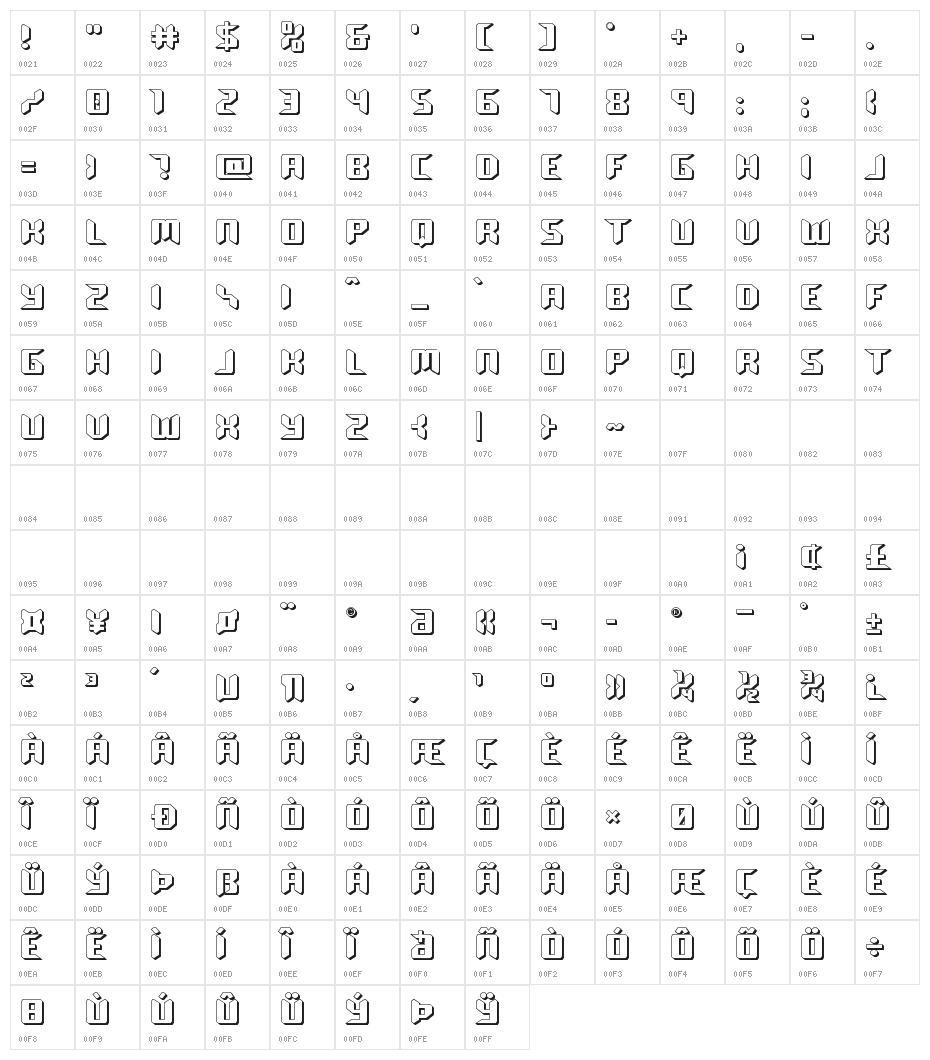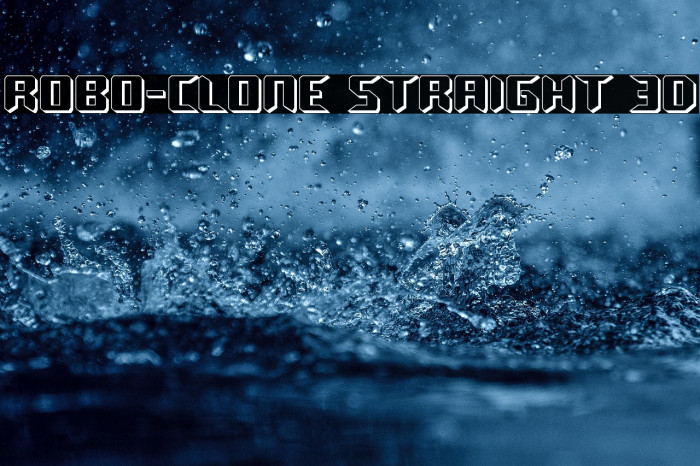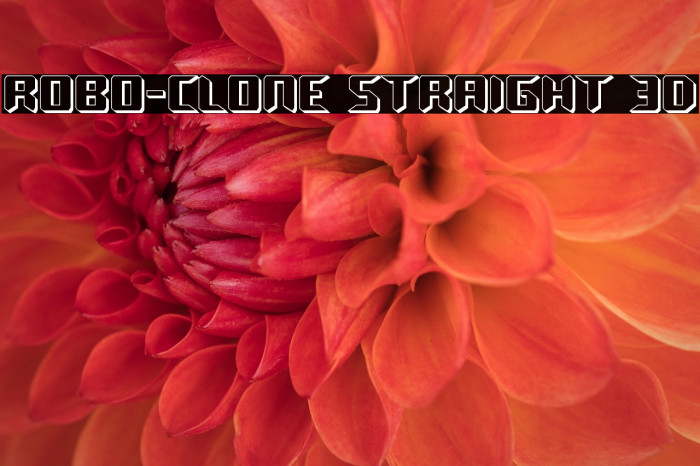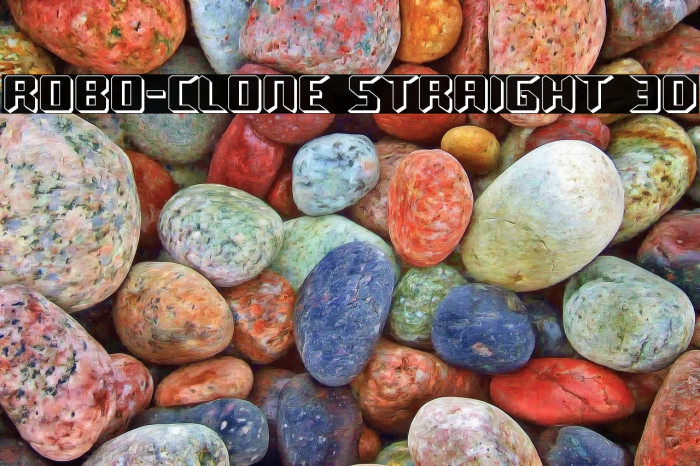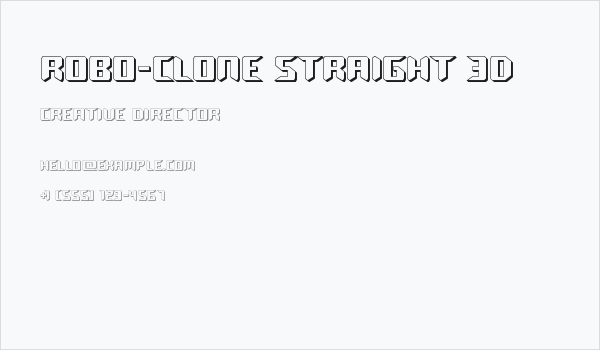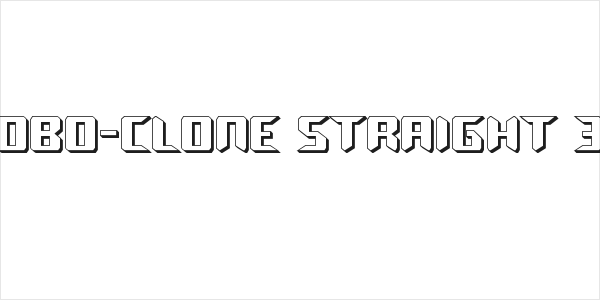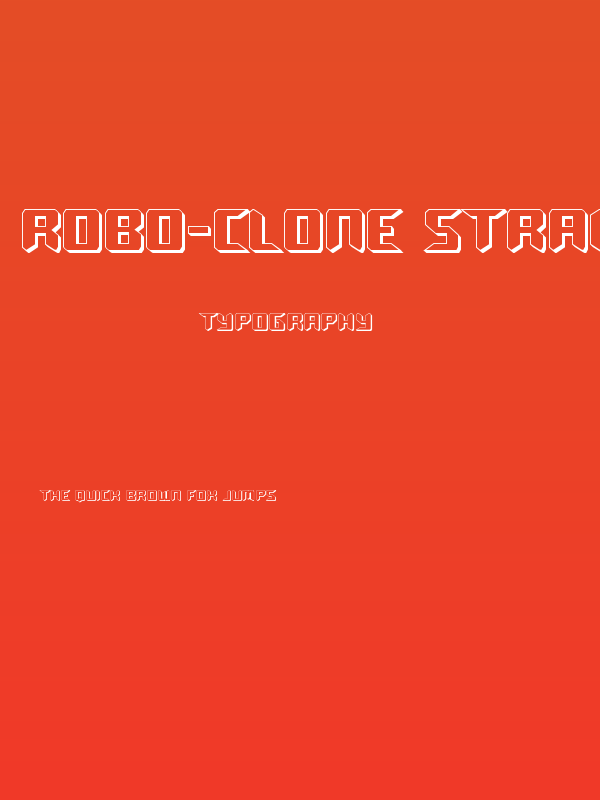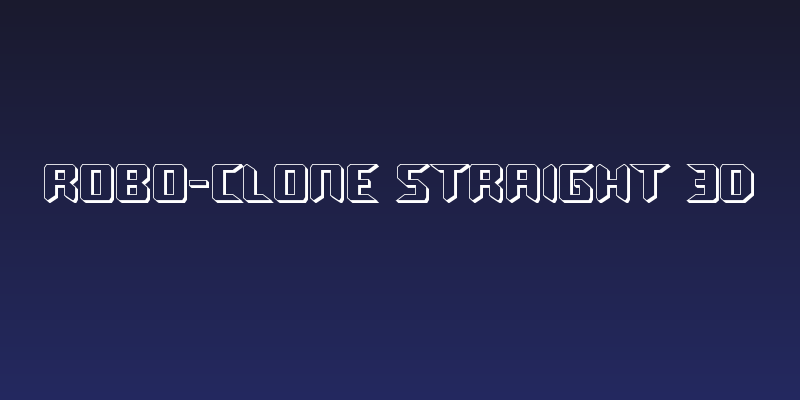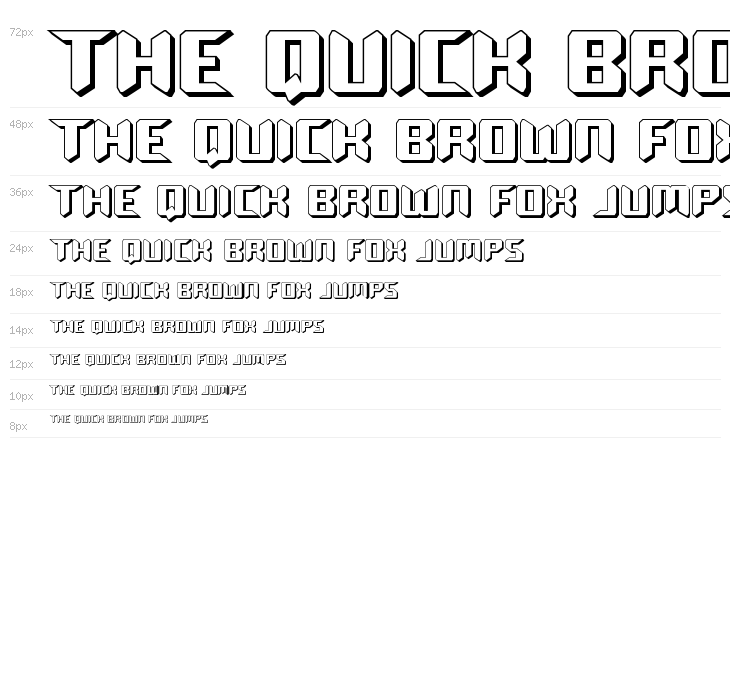
Robo-Clone Straight 3D Font
Robo-Clone Straight 3D Description
This font features a bold, geometric design with a three-dimensional effect, giving each character a distinct, futuristic appearance. The letters are constructed with sharp angles and straight lines, creating a sense of depth and structure. The 3D effect is achieved through the use of shadowing, which adds a layer of complexity and visual interest. This style is consistent across uppercase, lowercase, numbers, and special characters, maintaining a cohesive look throughout. The font's unique design makes it stand out, ideal for projects that require a modern and edgy aesthetic.
| Proposed Projects | Ideal for technology-themed projects, video game titles, sci-fi movie posters, and modern branding. |